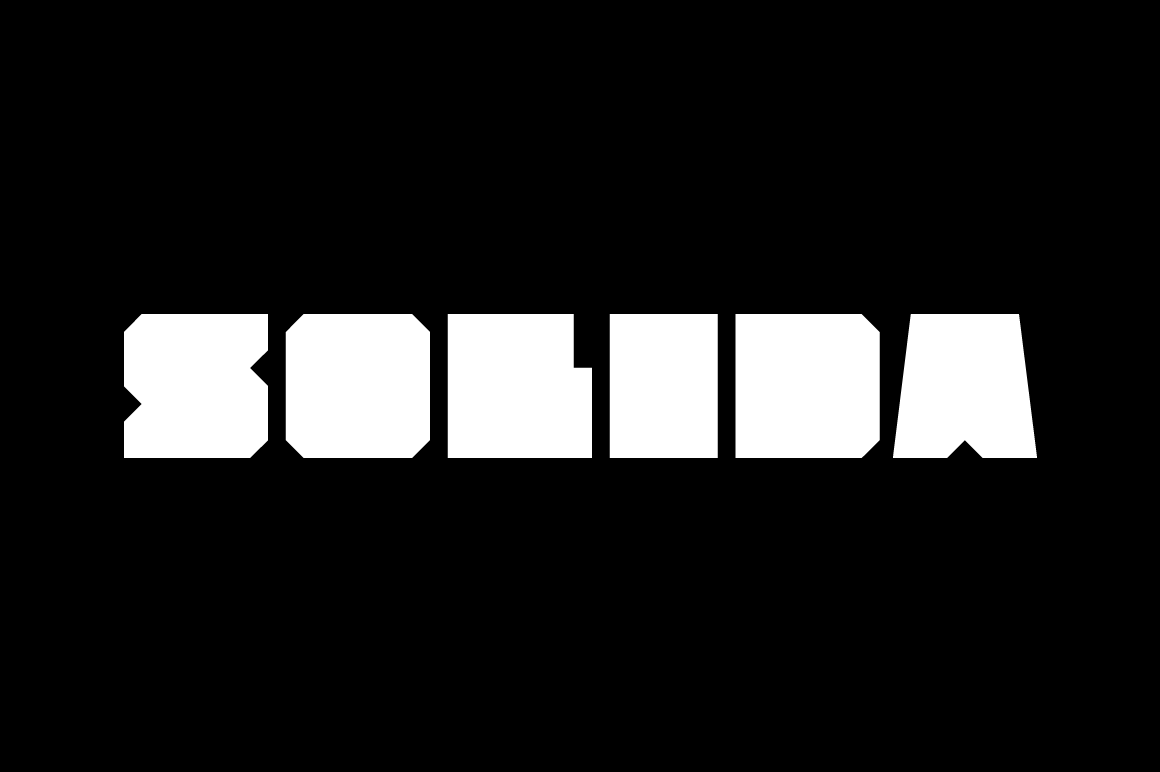
Solida Font Family
Designer: Pablo Balcells
Design date: 2012
Solida font family has been designed for Graviton Font Foundry by Pablo Balcells in 2012. It is display typeface with a geometric angular look.
Solida consists of 10 styles.